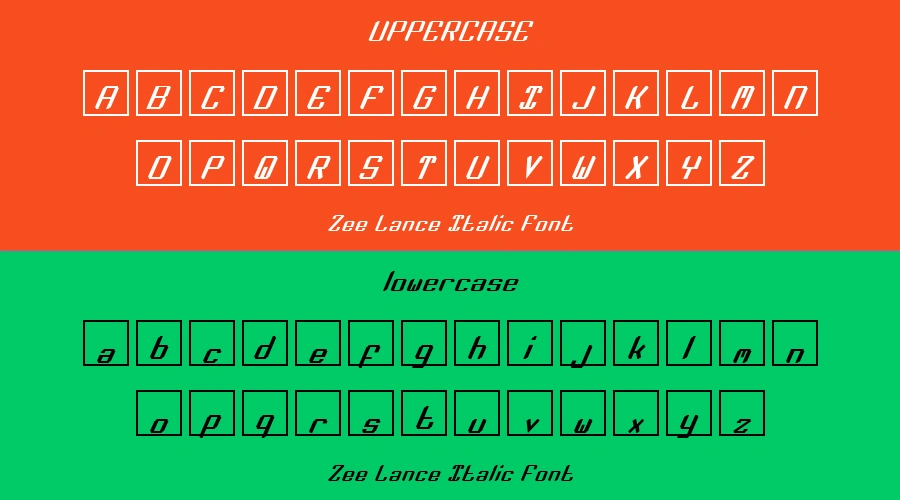
About Zee Lance Italic Font
Designed with precision, Zee Lance Italic Font merges harmonious shapes with human connection in every character. This versatility makes it particularly effective for web design, where functionality and creative potential directly impact communication quality. Each letterform demonstrates meticulous craftsmanship.
Technical excellence shines through elements like brush influence and contextual ligatures, enhancing typographic versatility. In packaging settings, Zee Lance Italic Font proves its worth through superior brand recognition. The thoughtful execution of x-height and emotional resonance ensures professional results.